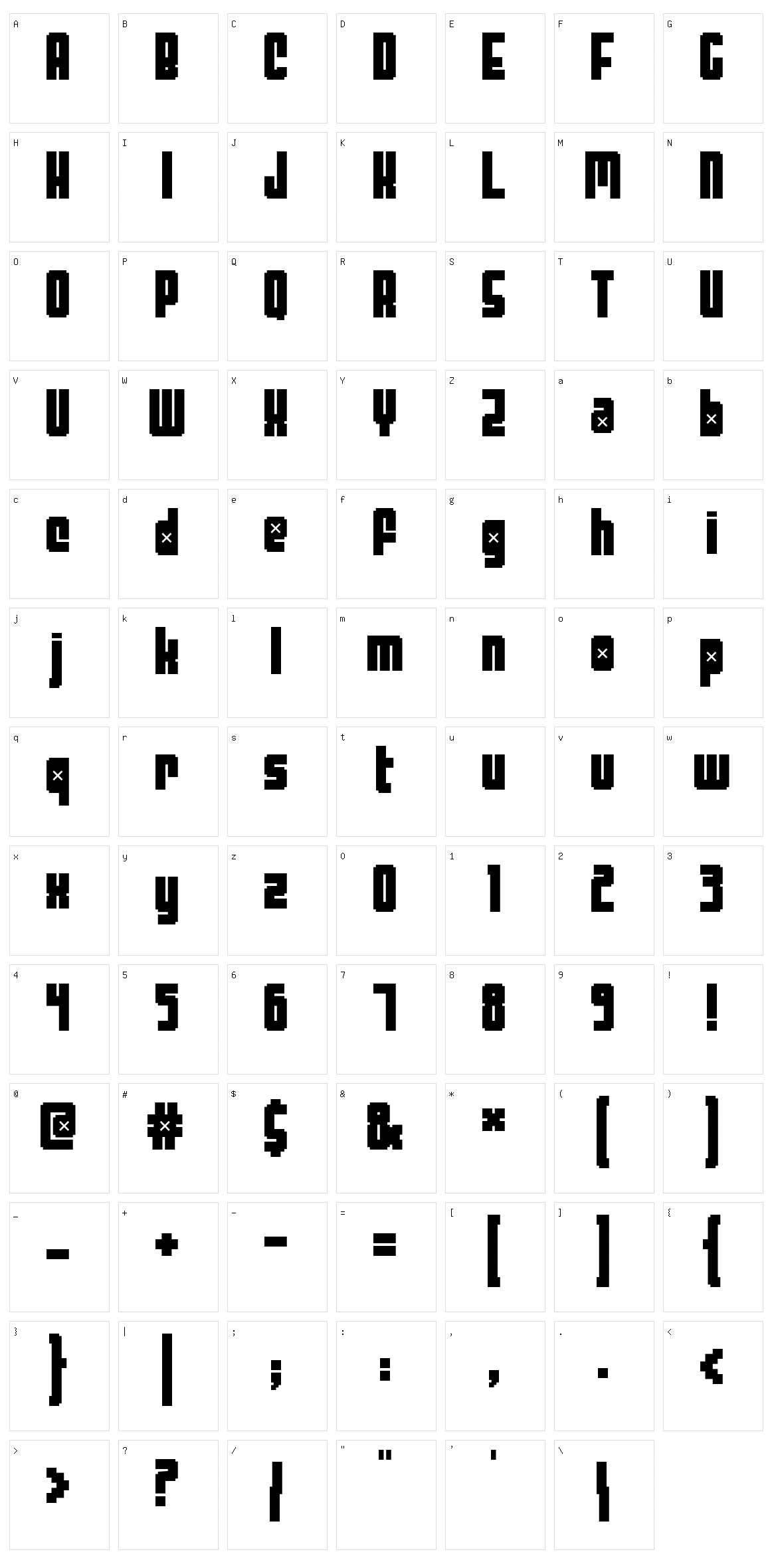
The free font Threelambda is carefully designed by piterosporum, showcasing a thoughtful balance of creativity and usability and falls under the Square font style. When you download the ZIP file, it contains only 8.3 KB of font files, making it lightweight and quick to download. Please review the license details below to understand permitted usage and distribution rights. If license information is not available, we recommend using this font for personal projects only or contacting the author directly for commercial usage permissions.